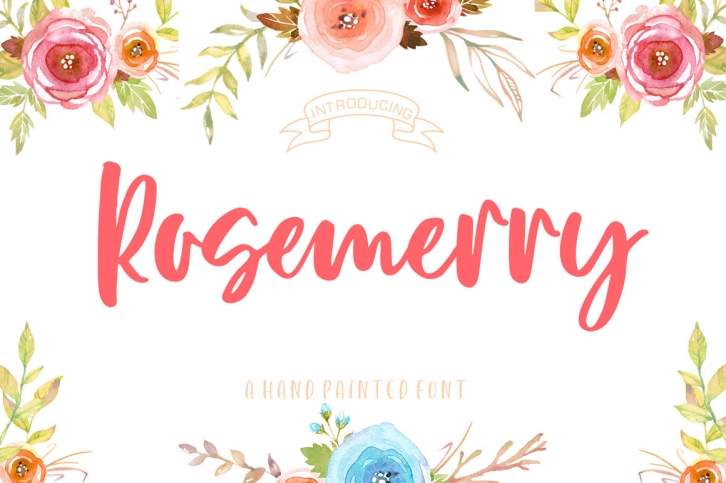
Rosemerry Script is a trendy and unique font with an authentic style. It was designed by Delisha Design and it's a great choice for creative people who need such a font. It was released on July 29, 2019 and the file size is 3.45 MB. Rosemerry Script will add an organic vibe to any design idea!